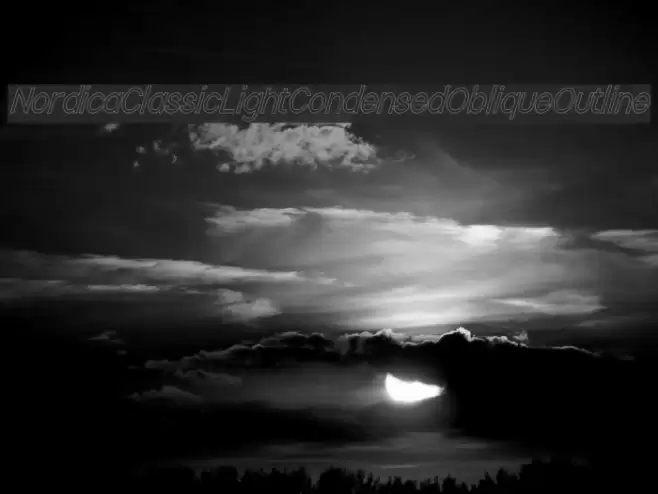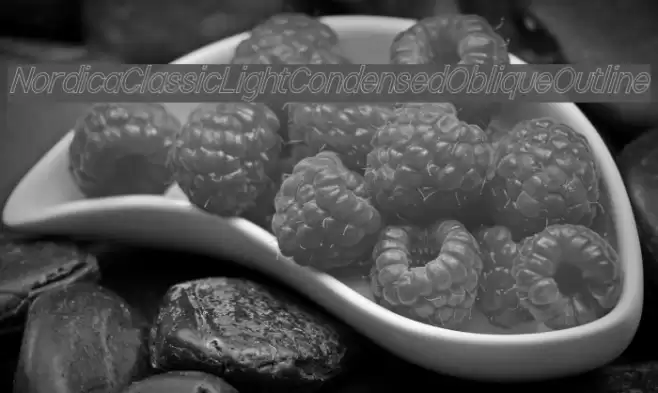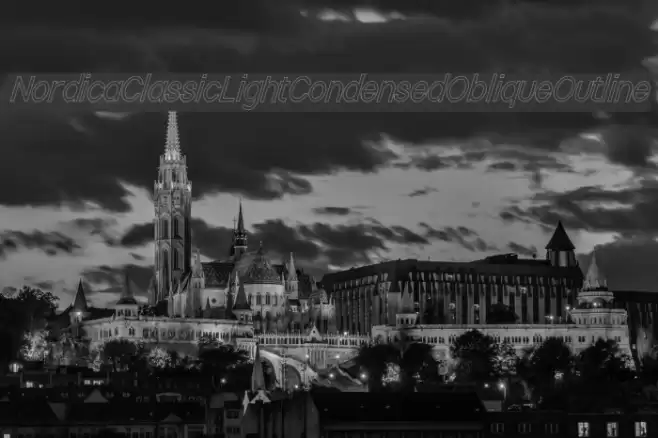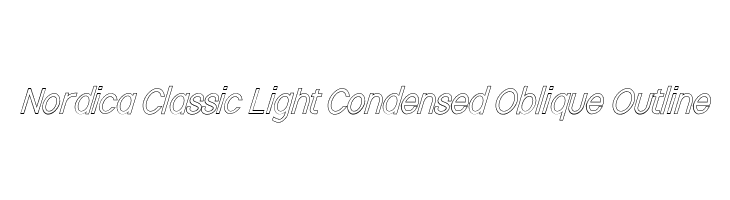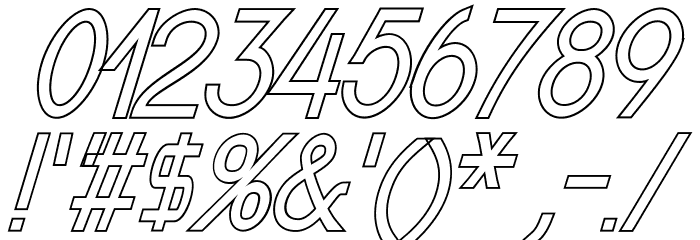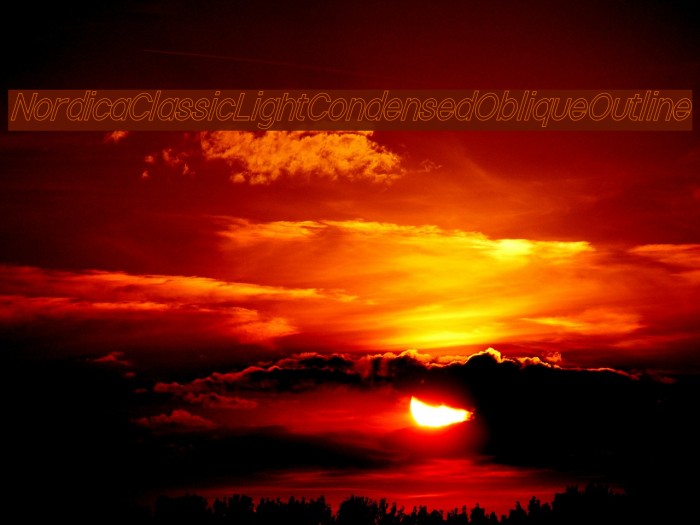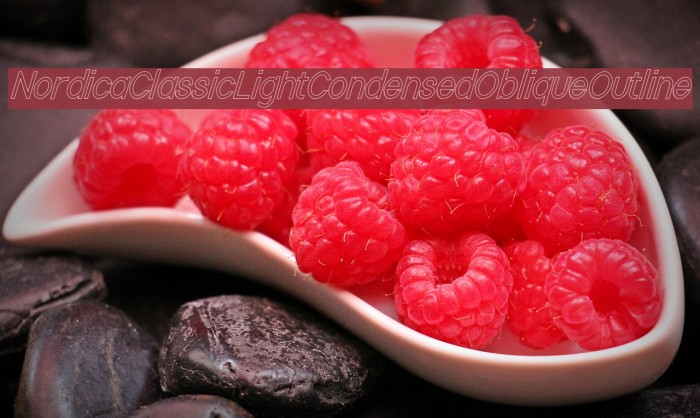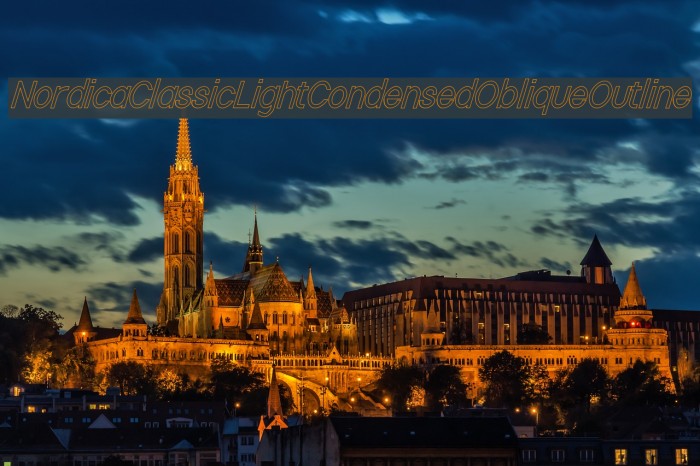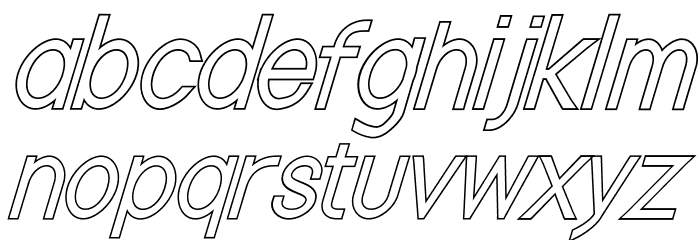
Nordica Classic Light Condensed Oblique Outline
This font features a sleek and modern design with an oblique orientation, giving it a dynamic and forward-leaning appearance. The characters are outlined, providing a unique and stylish look that is both light and airy. The condensed width of the letters allows for efficient use of space, making it suitable for various design applications. The font maintains a consistent stroke width, contributing to its clean and minimalistic aesthetic. Its geometric shapes and sharp angles add a contemporary touch, making it ideal for projects that require a modern and sophisticated feel.
A modern, oblique, and outlined font with a condensed and light style.
- Proposed Projects: Ideal for branding, advertising, headlines, and modern design projects.
- Weight: Light
- Width: Condensed
- Use Case: Headlines, Logos, Branding